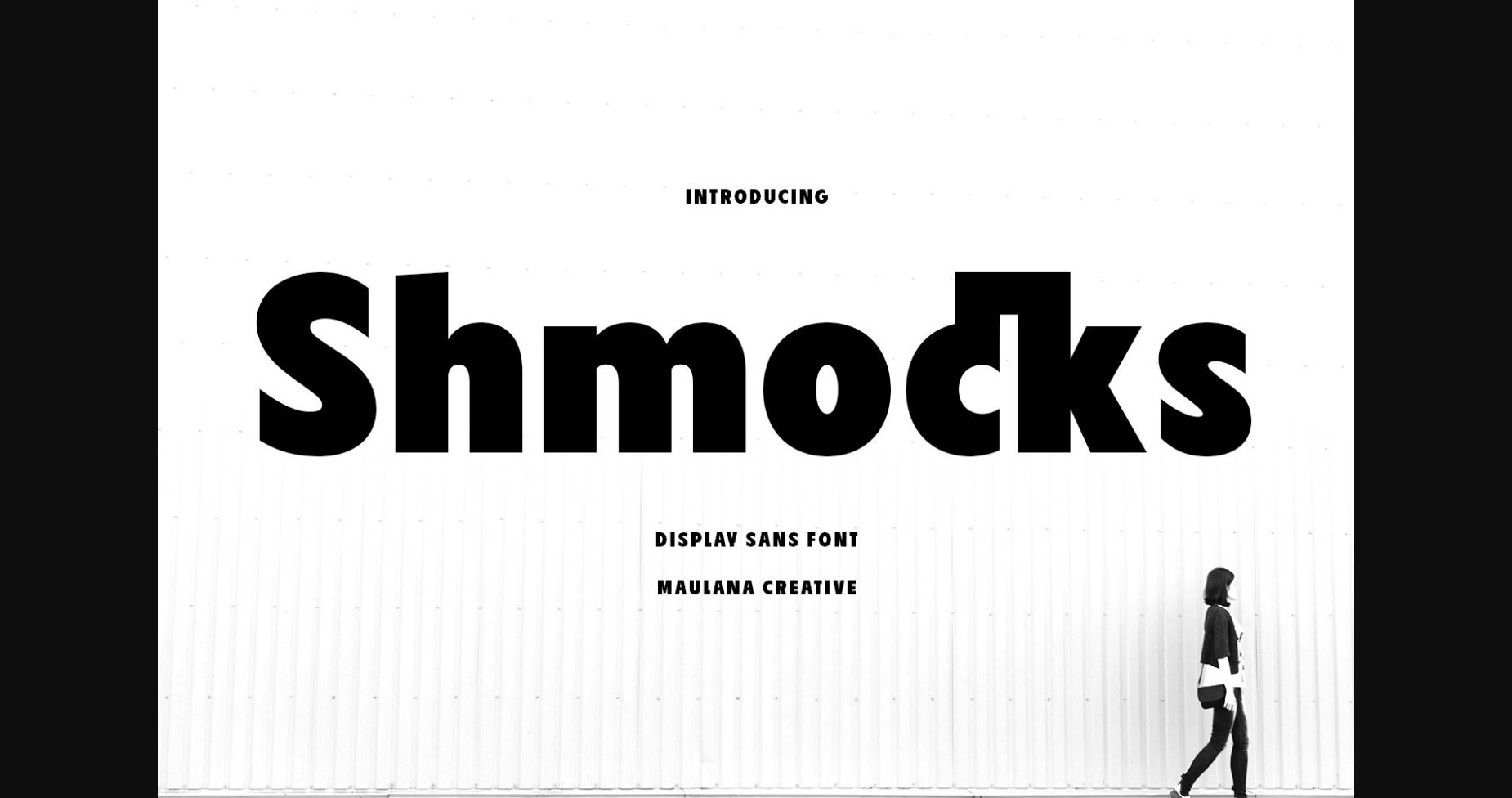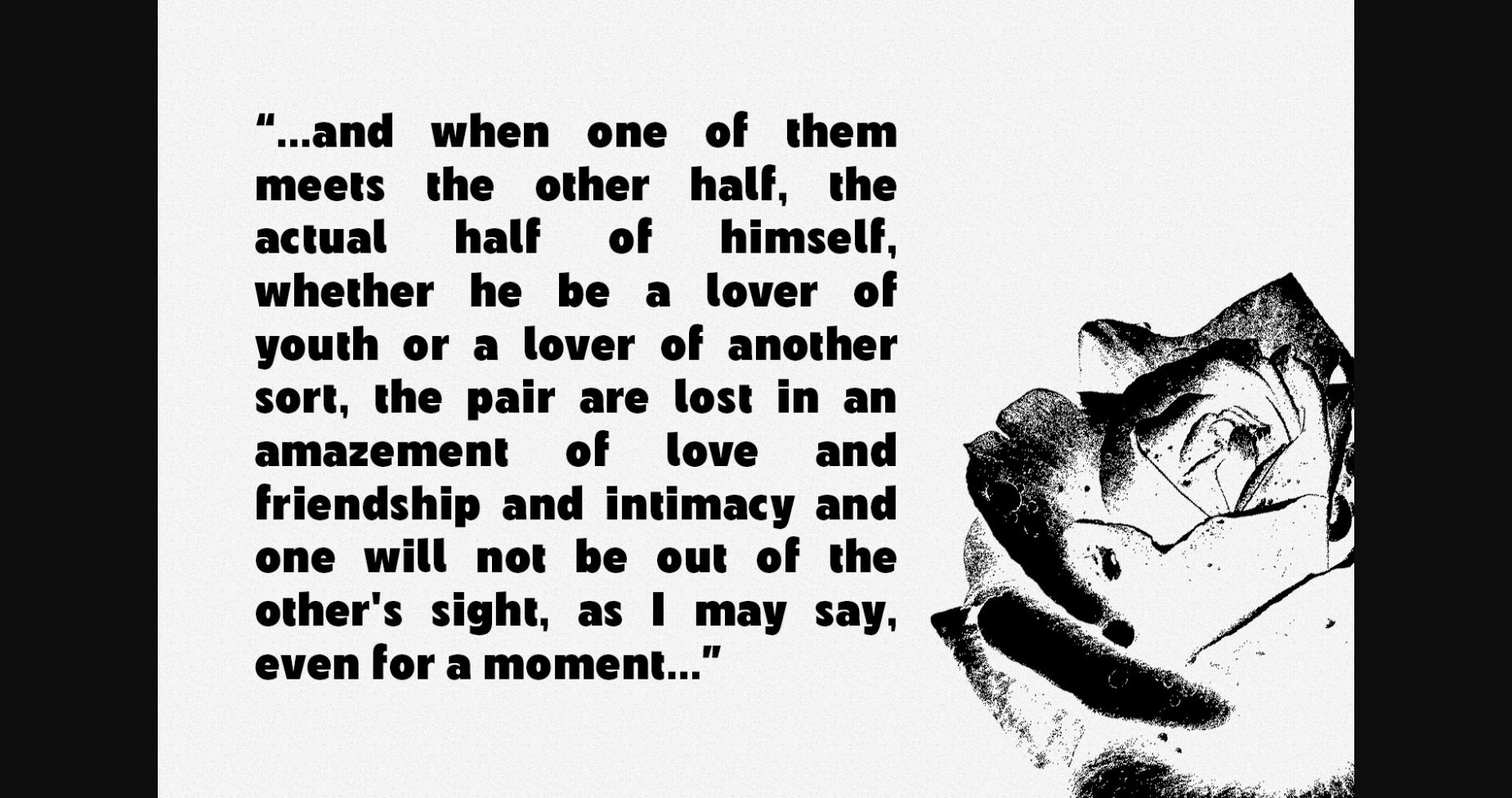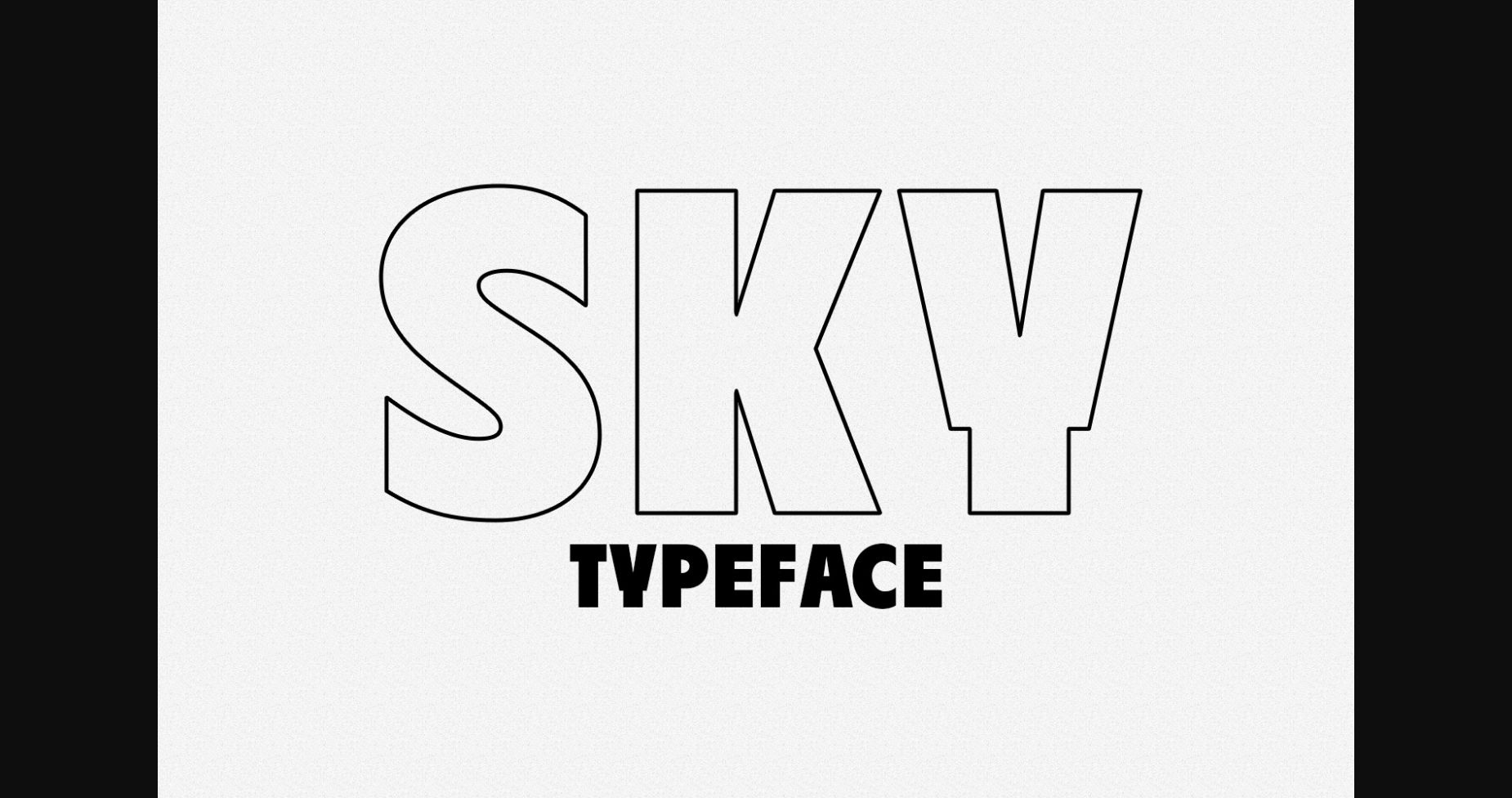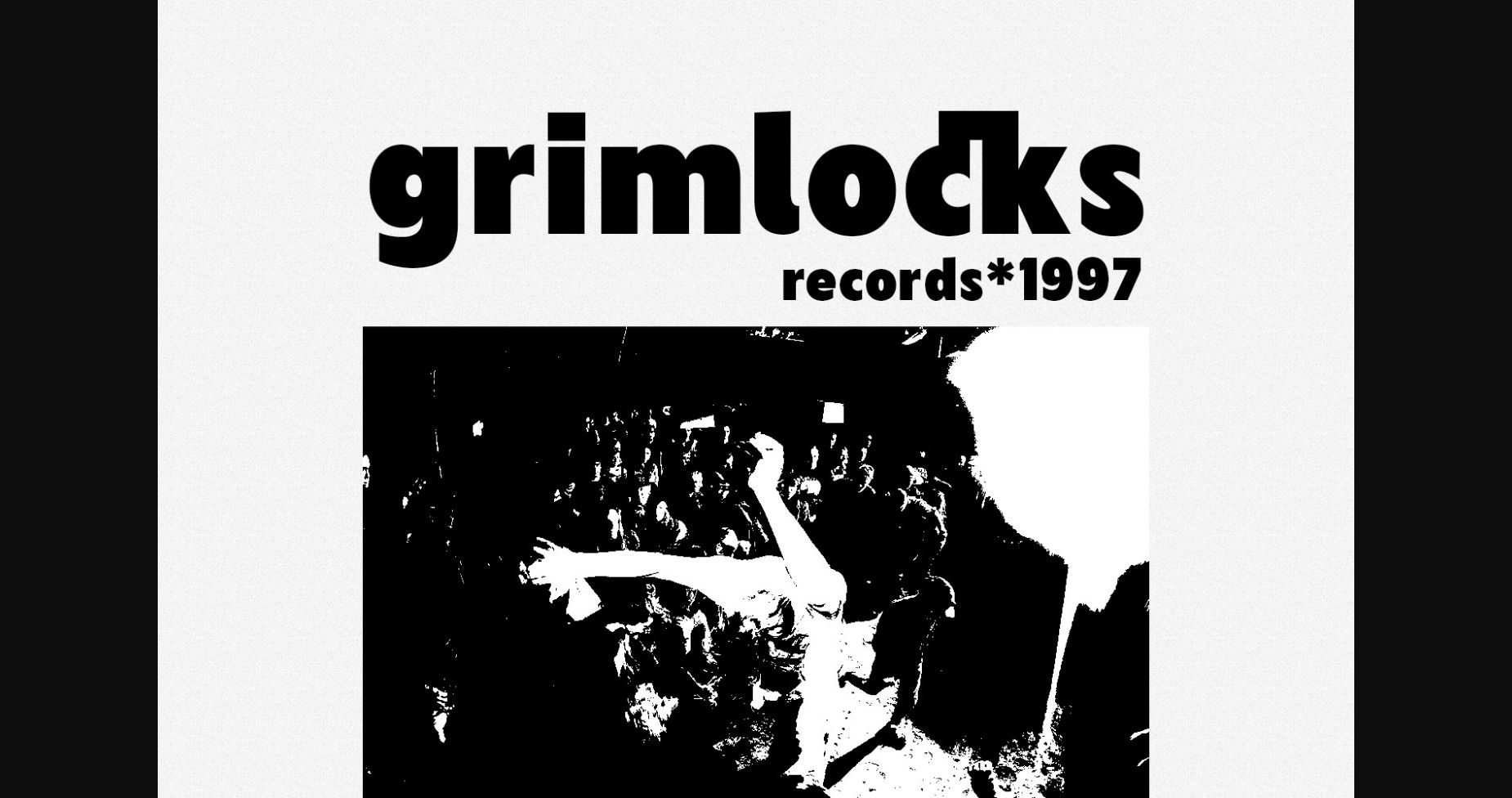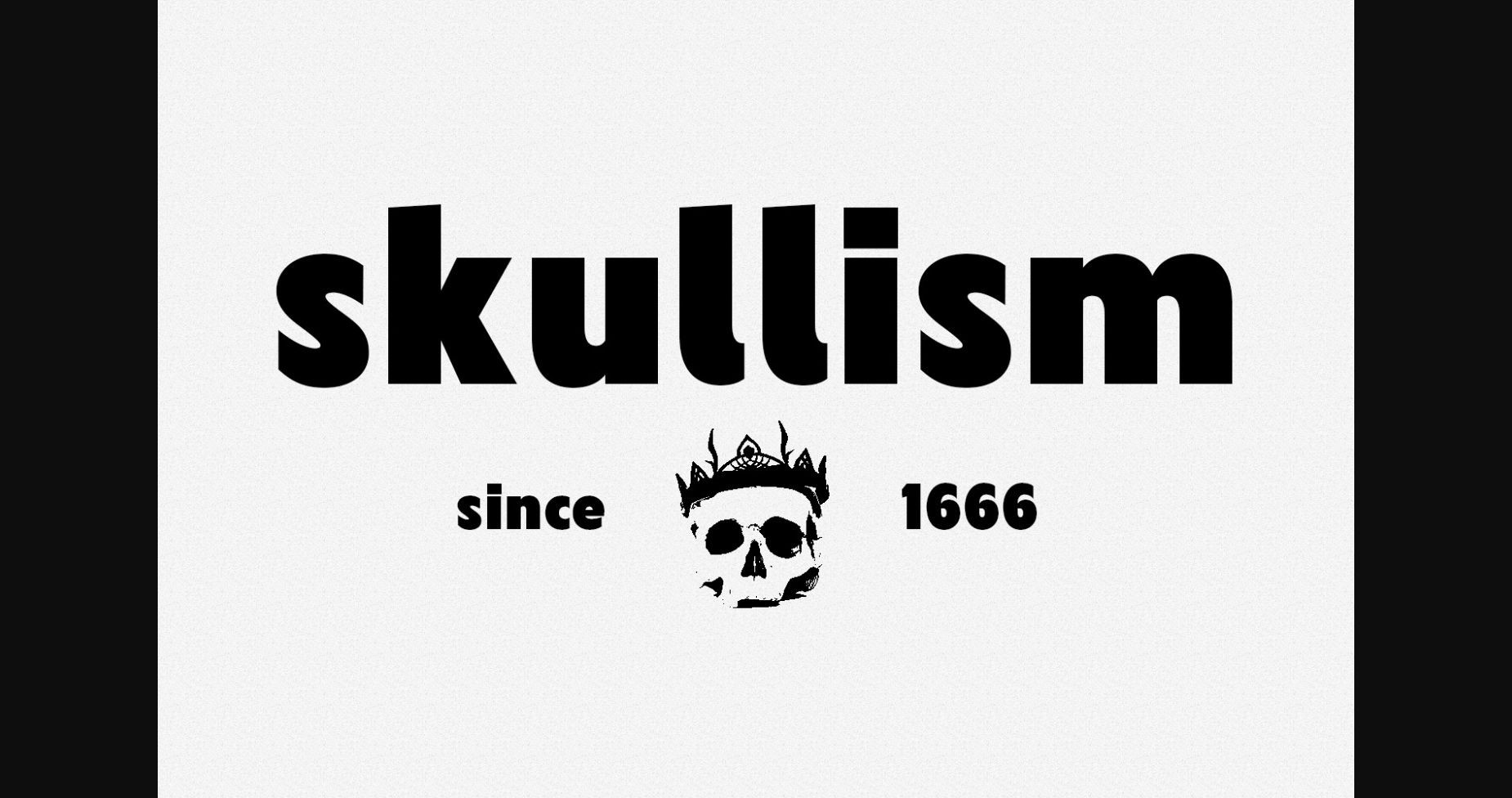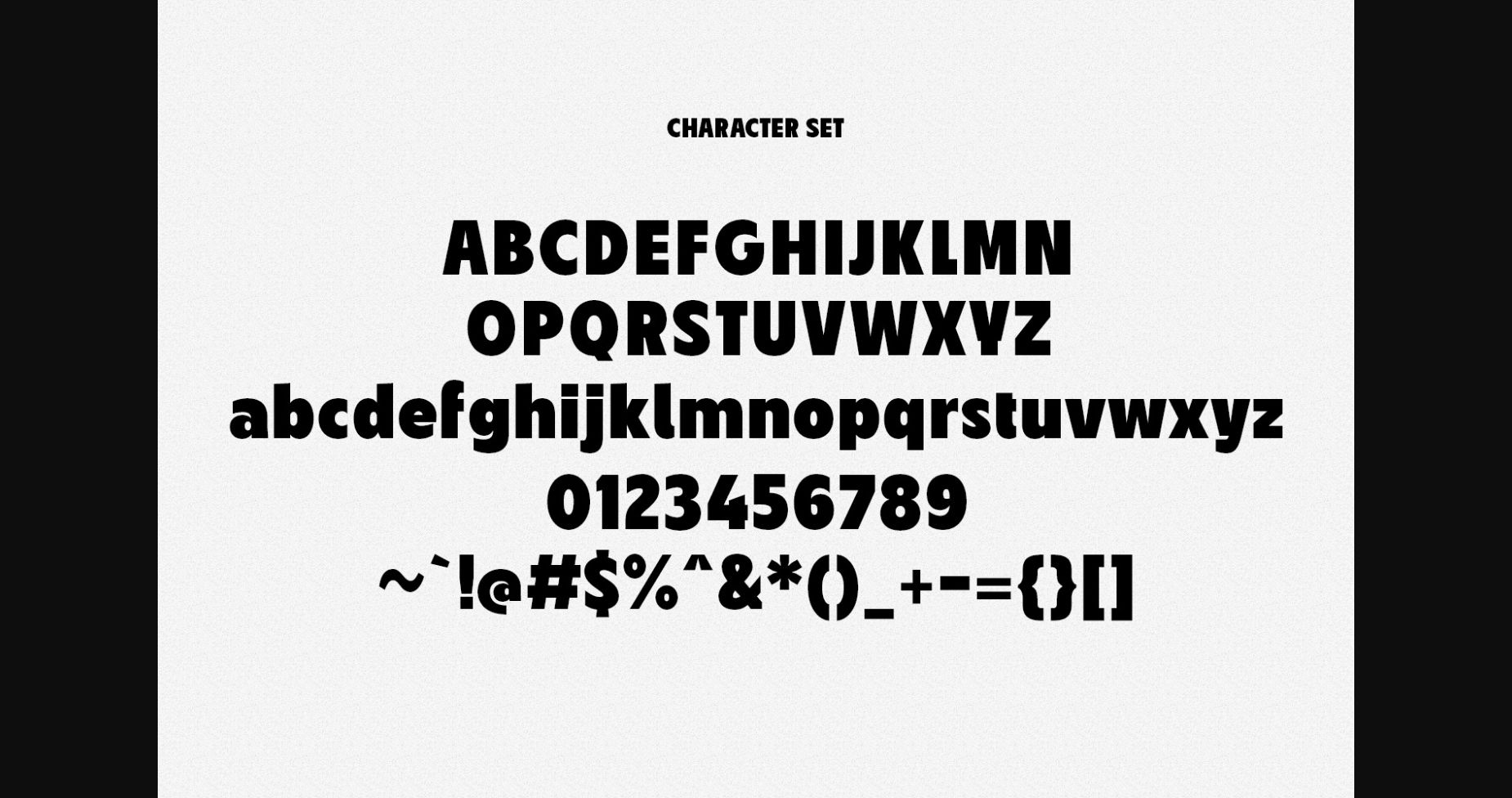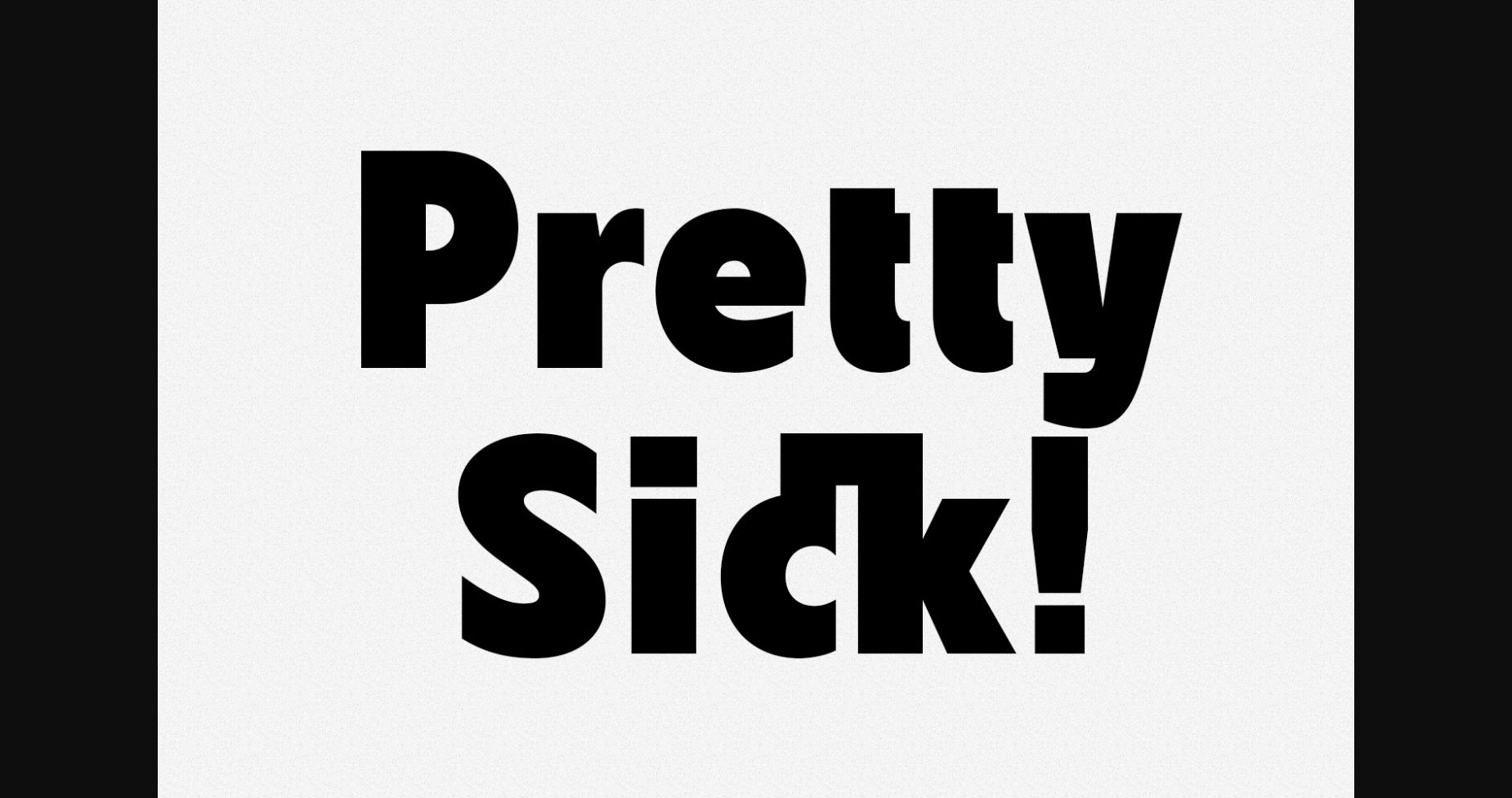
Shmocks Font
About Shmocks Font
Shmocks is a classic and tremendous sans-serif font that exudes a sense of power and authority. Its clean lines and simple yet bold appearance make it ideal for titles and headlines, while its versatility allows it to be used in a variety of design applications. Its timeless style is sure to leave a lasting impression.